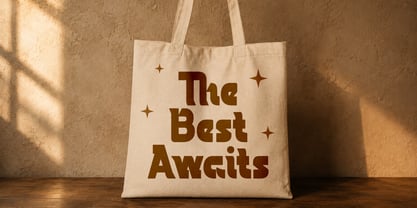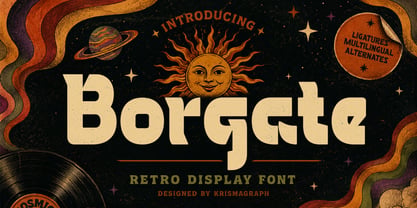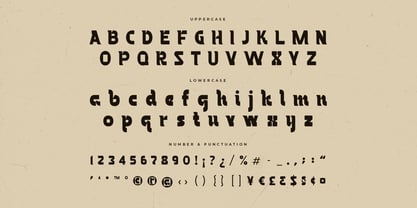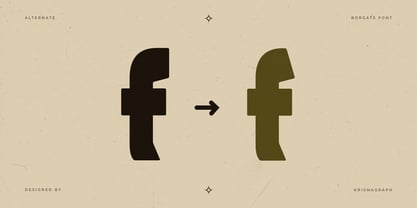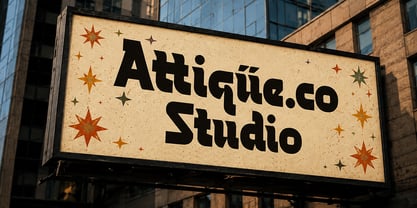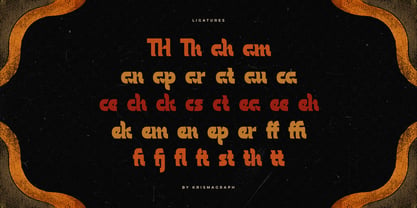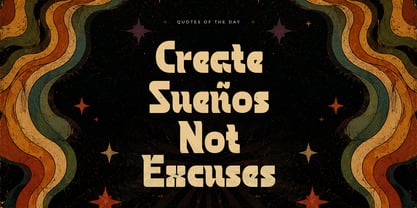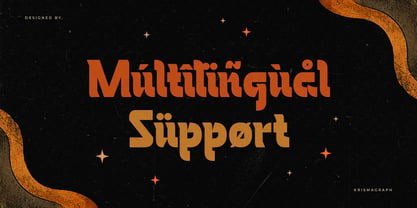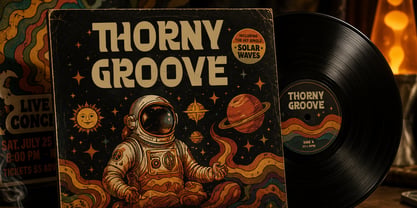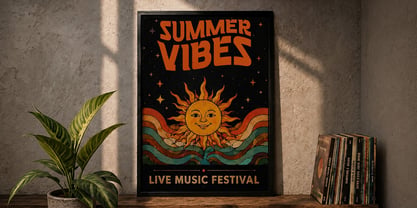
Borgate
by Krismagraph
The Borgate Font Family was designed by Ratna Krismawati and published by Krismagraph. Borgate contains 1 styles. More about this family
Borgate is a retro display font inspired by the bold visual language of the 60s and 70s. Featuring chunky letterforms, smooth curves, and playful proportions, Borgate captures the nostalgic spirit of vintage typography while delivering a fresh and contemporary appeal.
Designed with alternates, ligatures, and multilingual support, Borgate gives designers the flexibility to create expressive and eye-catching typography. Its distinctive retro personality makes it an excellent choice for projects that demand warmth, energy, and unforgettable visual impact.
Perfect for branding, logos, posters, album artwork, packaging, advertising, café branding, social media graphics, website headers, editorial headlines, and creative print materials, Borgate transforms every word into a bold design statement.
FEATURES:
- Uppercase
- Lowercase
- Multilingual support
- Ligature & alternates
- Ideal for large headlines & displays
- Punctuation
- Numerial